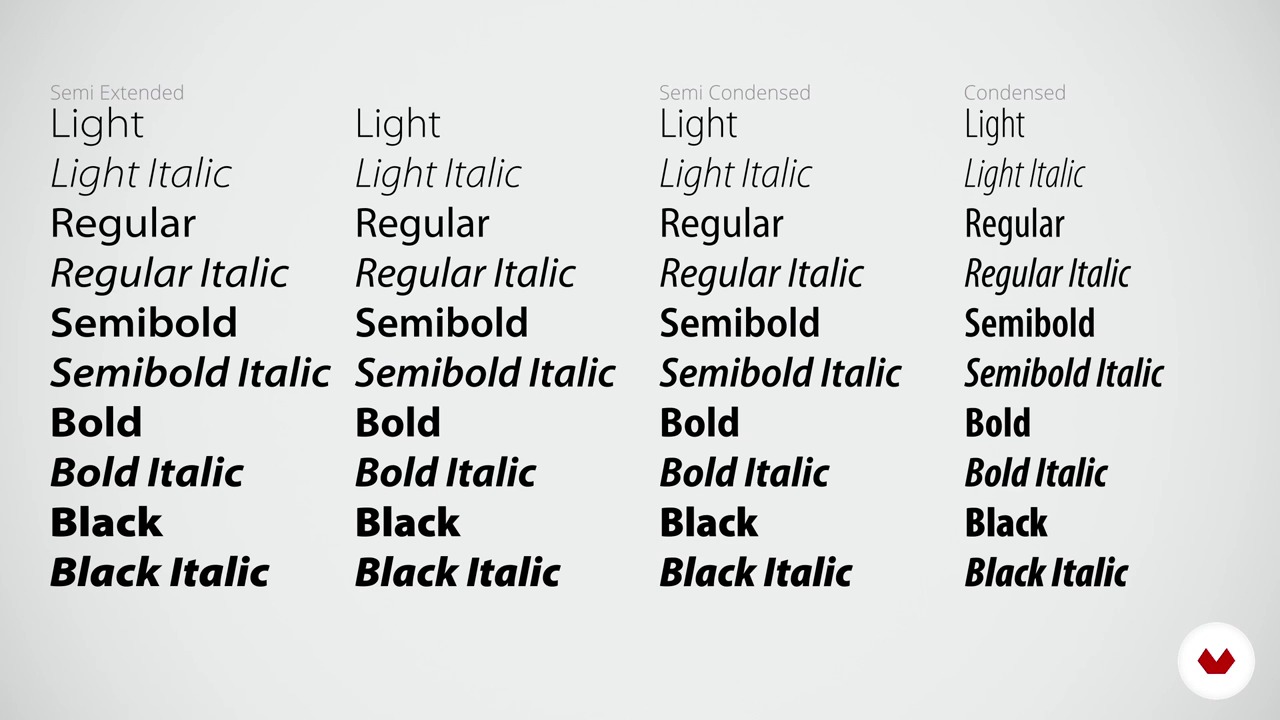
How to Choose Fonts
The family
About the video: The family
“We all have family, bigger or smaller. The typography was not going to be less.”
In this video lesson Enric Jardí addresses the topic: The family, which is part of the Domestika online course: How to Choose Fonts. Discover what each type of font tells us and how to choose the right one for your project.
“The family Today in foundries you find many classic types, like Garamond or Bodoni, organized in families. This is something that is given because of the way foundries sell us letters, But it was not always like this. Let's see a little how families work and how we work with them. For starters, the Renaissance punchmen created from different letter patterns what we know today as a round letter and as an italic letter. They are two different style writings. That in many cases, many punchmen made both models, but in reality they are different ideas. That is to say, that the books, when they s...”